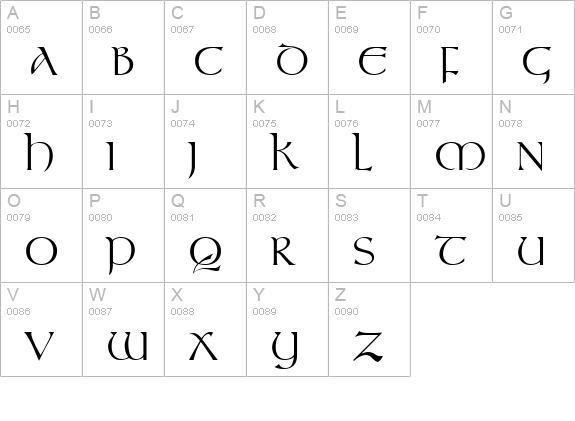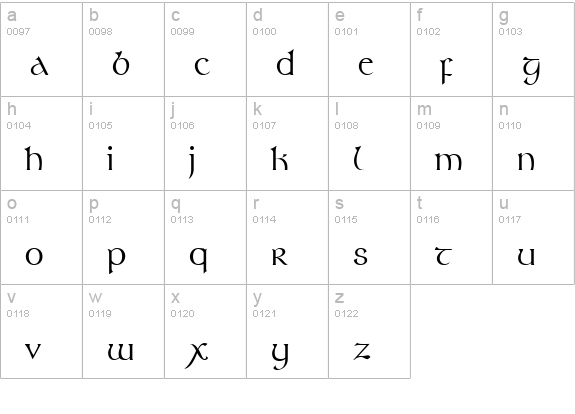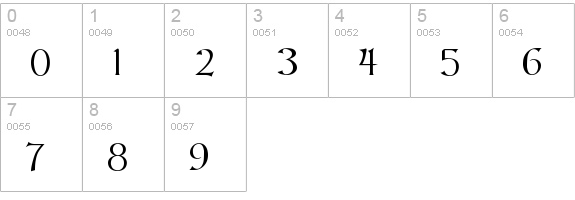
Stonehenge Regular is the standard, neutral variant in the Stonehenge typeface family \xE2\x80\x94 well suited to general body text, paragraphs, and standard typographic work.
Stonehenge Regular font is a classic and versatile typeface that exudes elegance and sophistication. Its clean lines and timeless design make it perfect for a wide range of projects, from branding to editorial design. The balanced proportions and subtle serifs of Stonehenge Regular add a touch of refinement to any text. What sets Stonehenge Regular apart is that it is available for free download at FontsMarket.com. This means that you can easily access this high-quality font without any cost, making it an ideal choice for designers on a budget or anyone looking to add a touch of style to their projects. With its graceful curves and excellent readability, Stonehenge Regular is sure to become a staple in your font library.